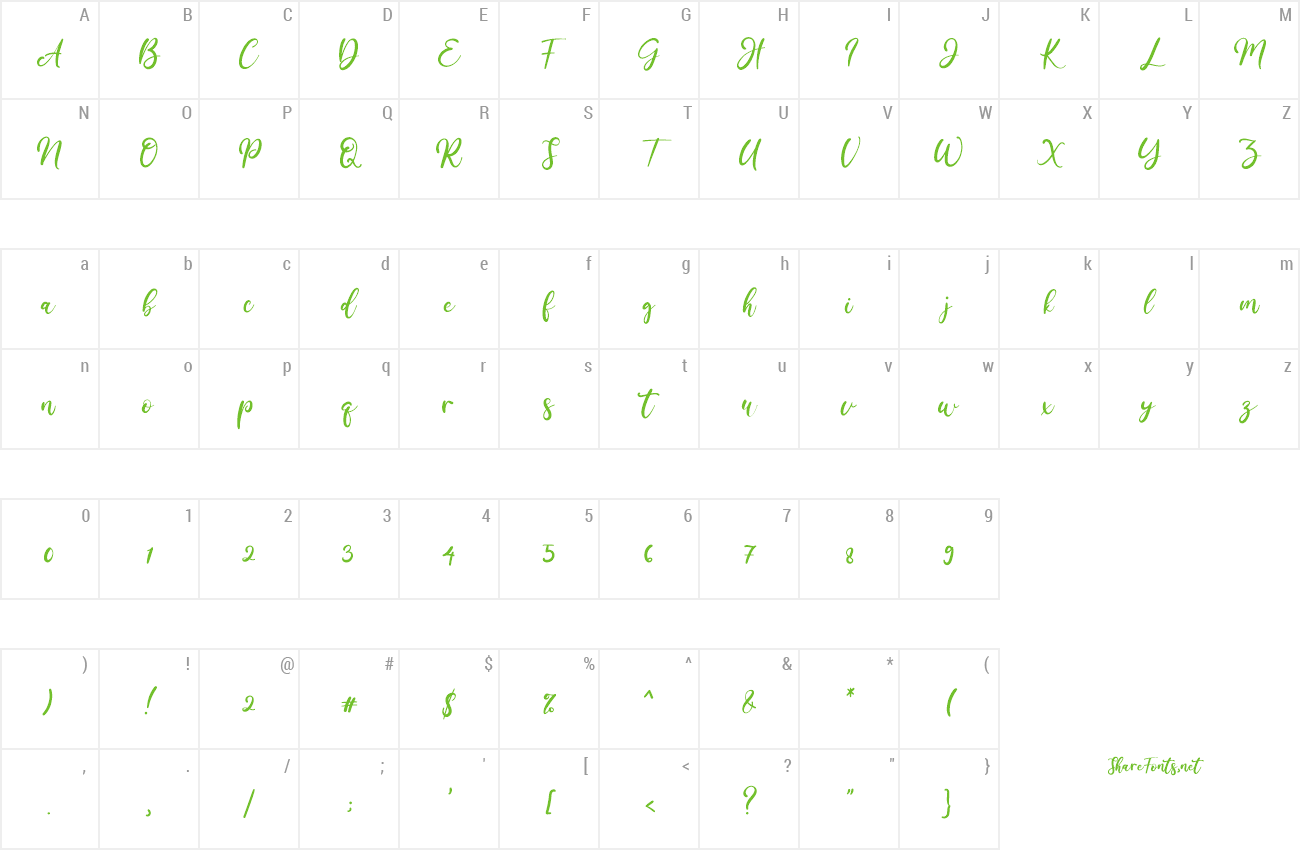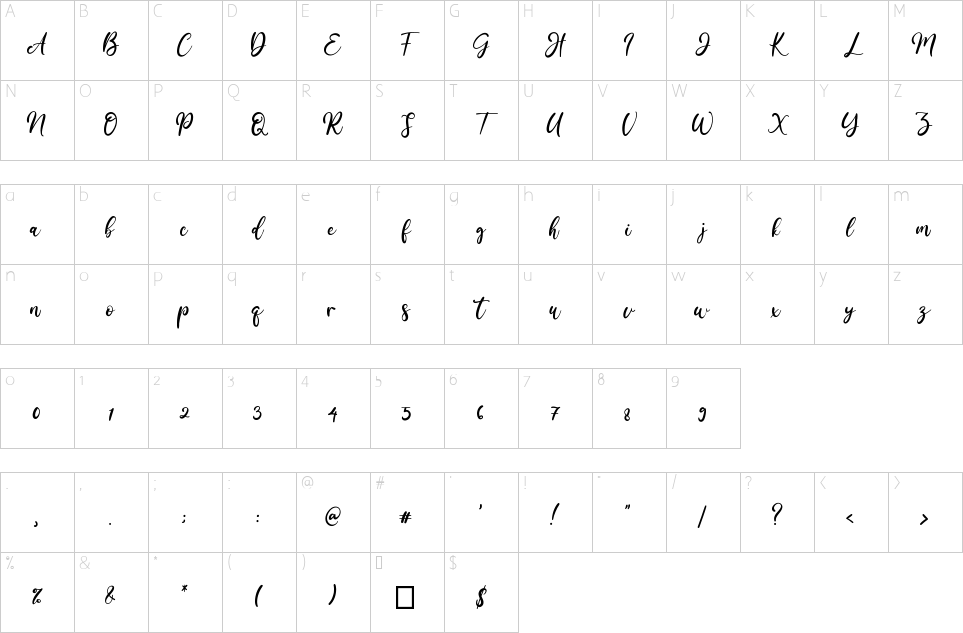
Amellis Path Font
Amellis Path Font - Web amellis path font free for personal use preview download :: Font preview use the text generator tool below to preview amellis path font, and create appealing text. Get inspired by its unique and beautiful style and add it to. The amellis path font has been downloaded 4,358 times. New fonts | top fonts | submit a font | font designers | 10,000 fonts | faq | contact Web download the amellis path font by stringlabs. Amellis path is a flowing and elegant handwritten font, created with the help of a brush pen.
Web amellis path font free for personal use preview download :: Web download the amellis path font by stringlabs. Get inspired by its unique and beautiful style and add it to. New fonts | top fonts | submit a font | font designers | 10,000 fonts | faq | contact Font preview use the text generator tool below to preview amellis path font, and create appealing text. The amellis path font has been downloaded 4,358 times. Amellis path is a flowing and elegant handwritten font, created with the help of a brush pen.
Amellis path is a flowing and elegant handwritten font, created with the help of a brush pen. The amellis path font has been downloaded 4,358 times. New fonts | top fonts | submit a font | font designers | 10,000 fonts | faq | contact Web amellis path font free for personal use preview download :: Web download the amellis path font by stringlabs. Font preview use the text generator tool below to preview amellis path font, and create appealing text. Get inspired by its unique and beautiful style and add it to.
Amellis Path Brush Script Font By StringLabs
Amellis path is a flowing and elegant handwritten font, created with the help of a brush pen. Font preview use the text generator tool below to preview amellis path font, and create appealing text. Web amellis path font free for personal use preview download :: Web download the amellis path font by stringlabs. The amellis path font has been downloaded.
Amellis Path Brush Cursive Font 112620 TemplateMonster
Amellis Path Font 1001 Free Fonts
Amellis path is a flowing and elegant handwritten font, created with the help of a brush pen. Web download the amellis path font by stringlabs. Web amellis path font free for personal use preview download :: New fonts | top fonts | submit a font | font designers | 10,000 fonts | faq | contact The amellis path font has.
Amellis Path Script Font › Fontesk
Get inspired by its unique and beautiful style and add it to. Font preview use the text generator tool below to preview amellis path font, and create appealing text. Amellis path is a flowing and elegant handwritten font, created with the help of a brush pen. Web download the amellis path font by stringlabs. Web amellis path font free for.
Amellis Path шрифт
New fonts | top fonts | submit a font | font designers | 10,000 fonts | faq | contact The amellis path font has been downloaded 4,358 times. Web download the amellis path font by stringlabs. Get inspired by its unique and beautiful style and add it to. Font preview use the text generator tool below to preview amellis path.
Amellis Path Font
Web amellis path font free for personal use preview download :: Get inspired by its unique and beautiful style and add it to. Web download the amellis path font by stringlabs. The amellis path font has been downloaded 4,358 times. Font preview use the text generator tool below to preview amellis path font, and create appealing text.
Schriftart Amellis Path Download
Web amellis path font free for personal use preview download :: New fonts | top fonts | submit a font | font designers | 10,000 fonts | faq | contact Get inspired by its unique and beautiful style and add it to. Web download the amellis path font by stringlabs. Font preview use the text generator tool below to preview.
Amellis Path font by StringLabs Creative Studio FontRiver
Font preview use the text generator tool below to preview amellis path font, and create appealing text. New fonts | top fonts | submit a font | font designers | 10,000 fonts | faq | contact Get inspired by its unique and beautiful style and add it to. Amellis path is a flowing and elegant handwritten font, created with the.
Amellis path is a flowing and elegant handwritten font, created with the help of a brush pen. Get inspired by its unique and beautiful style and add it to. Web amellis path font free for personal use preview download :: New fonts | top fonts | submit a font | font designers | 10,000 fonts | faq | contact